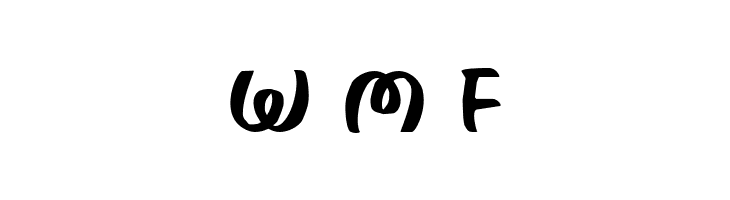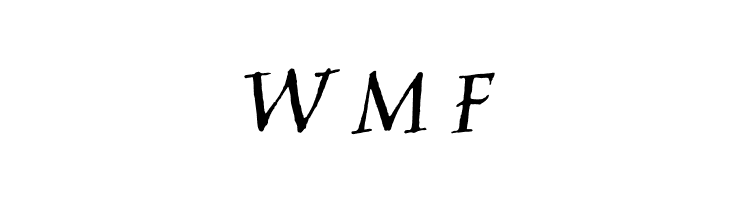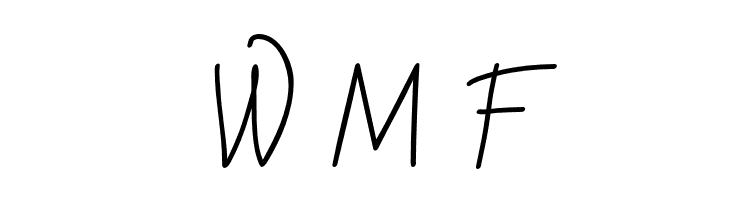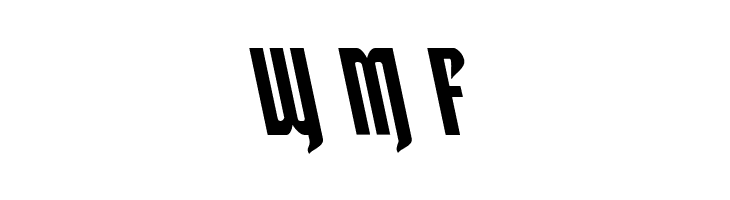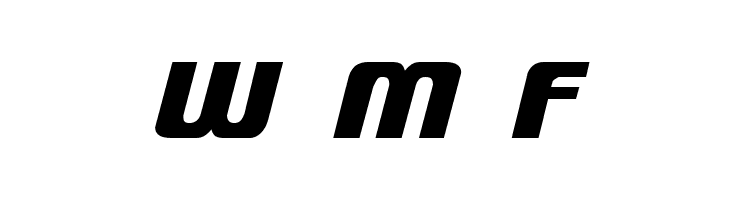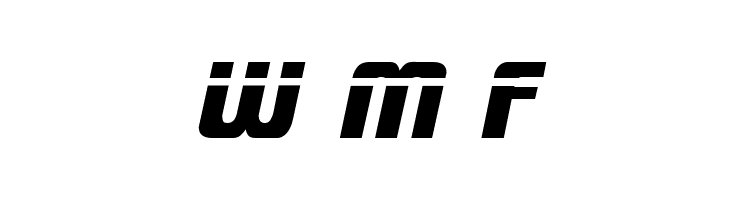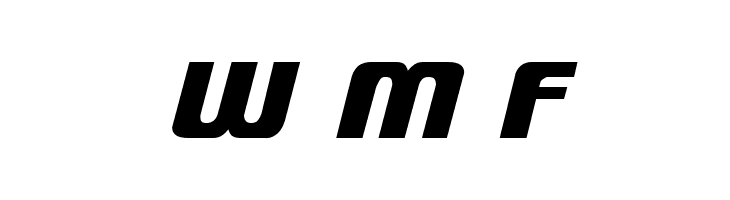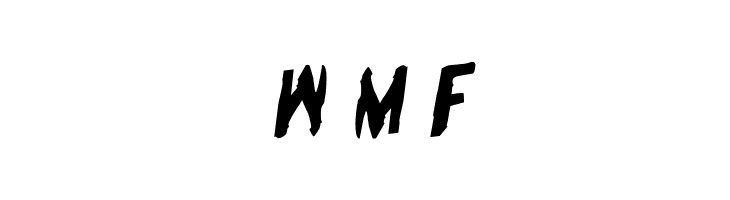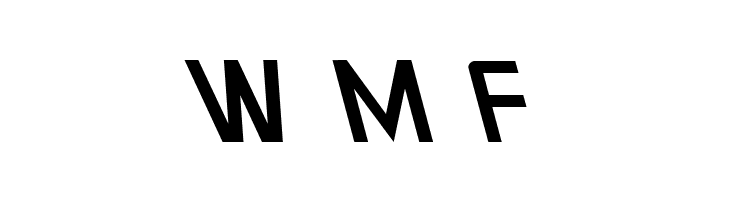
A dynamic, expressive handwritten font with fluid, slightly slanted letterforms.
A playful, handwritten font with elongated, slanted characters and medium contrast.
A bold, handwritten-style font with dynamic, slanted characters.
A bold, brush-style script font with dynamic, slanted characters.
A bold, slanted font with high contrast and angular shapes, ideal for dynamic headlines.
An elegant, cursive handwritten font with fluid, slanted lines.
A bold, angular font with a dynamic, slanted design.
A bold, italic font with dynamic slanted letterforms and high contrast strokes.
A playful, casual handwritten font with smooth curves and a slightly slanted style.
A dynamic, handwritten font with fluid, slanted strokes.
A bold, brush-style font with dynamic, slanted characters.
A bold, brush-style font with dynamic, slanted strokes and a handwritten feel.
A bold, italic serif font with dynamic slanted characters.
A casual, dynamic handwritten font with fluid, slightly slanted strokes.
A dynamic handwritten font with fluid, slightly slanted letterforms.
A bold, brush-style font with dynamic, slanted strokes and artistic flair.
A casual, flowing handwritten font with smooth, slanted letterforms.
A casual, handwritten font with a rough texture and slanted style.
A bold, italic, and modern font with dynamic slanted characters.
A bold, dynamic font with slanted characters and a modern, energetic style.
A sophisticated, slanted cursive font with elegant, flowing strokes.
A bold, italicized font with high contrast and dynamic slanted letterforms.
A flowing, elegant script font with bold, slanted uppercase letters and smooth, connected lowercase letters.
A bold, dynamic script font with elegant slanted uppercase and smooth flowing lowercase letters.
A bold, slanted font with a dynamic and energetic style.
A playful, handwritten font with tall, narrow, and slightly slanted characters.
A bold, modern handwritten font with dynamic slanted letters.
A bold, playful handwritten font with rounded, slanted characters.
A bold, modern script font with dynamic slanted letters and strong visual impact.
A fluid, cursive font with elegant, slanted strokes and a personal touch.
A bold, slanted font with a dynamic and energetic style.
A slanted, semi-bold font with a dynamic and modern style.
A modern, slanted font with smooth curves and a dynamic style.
A dynamic, cursive script font with flowing, slanted letters and lively contrast.
A slanted, elegant script font with interconnected letters and a handwritten feel.